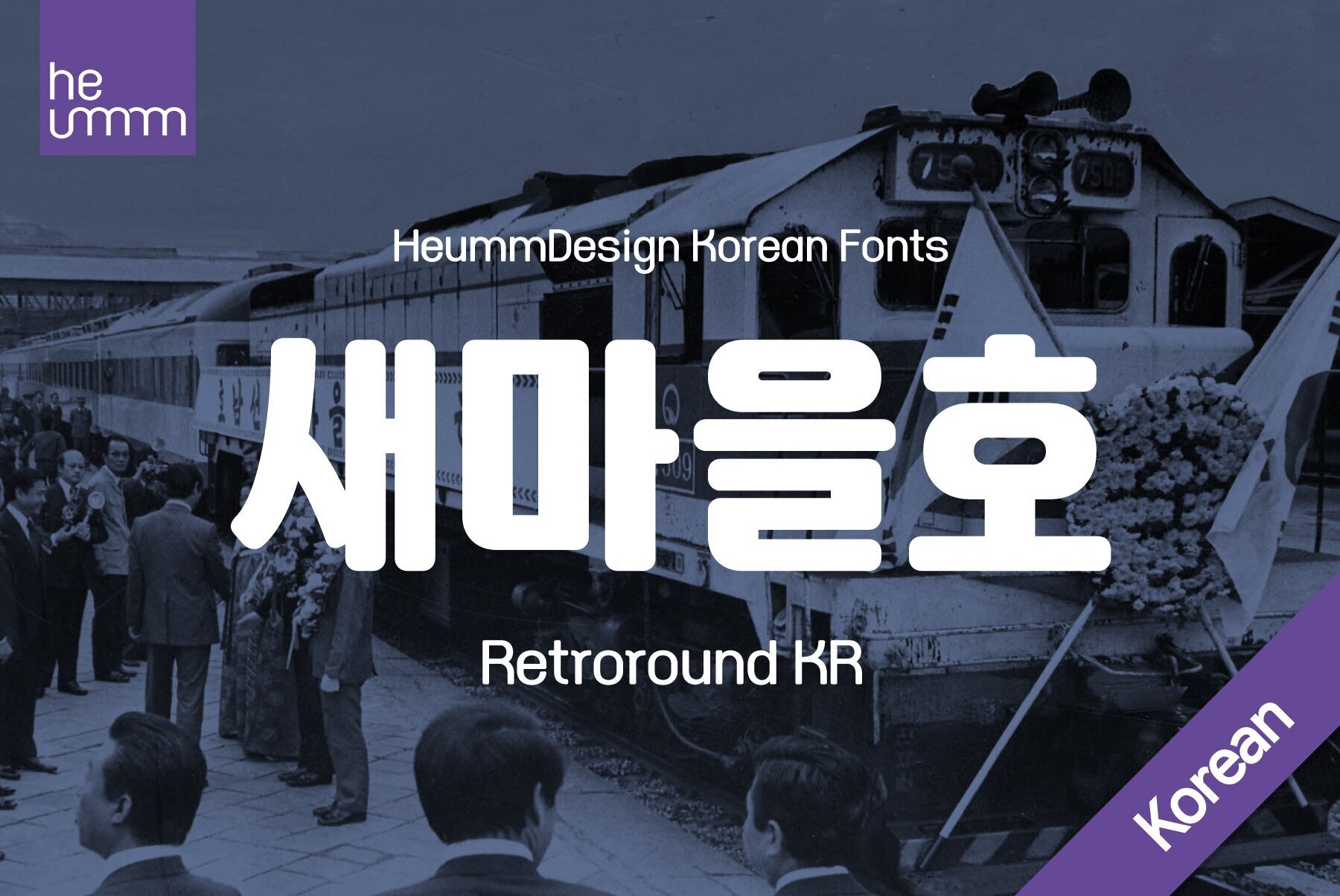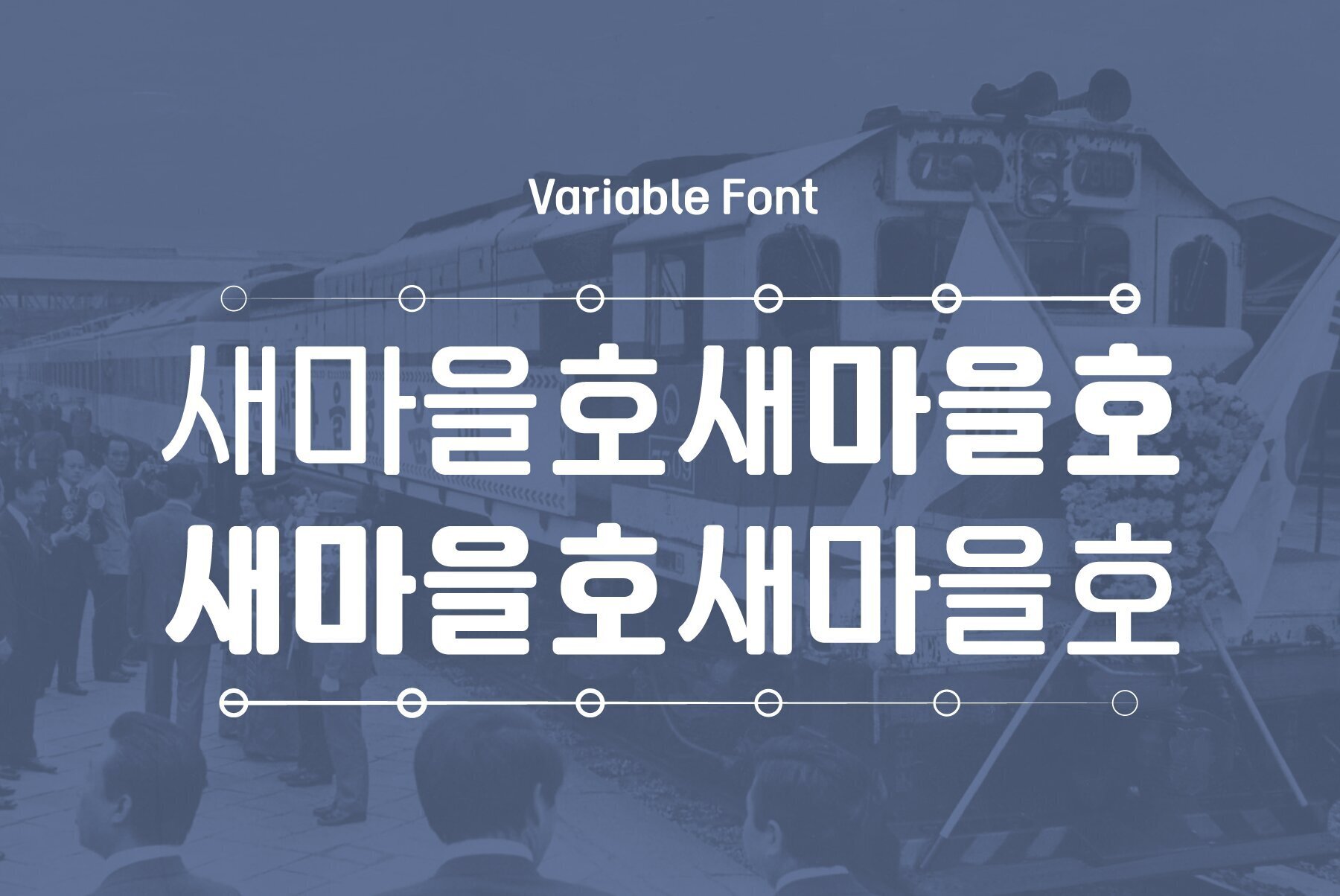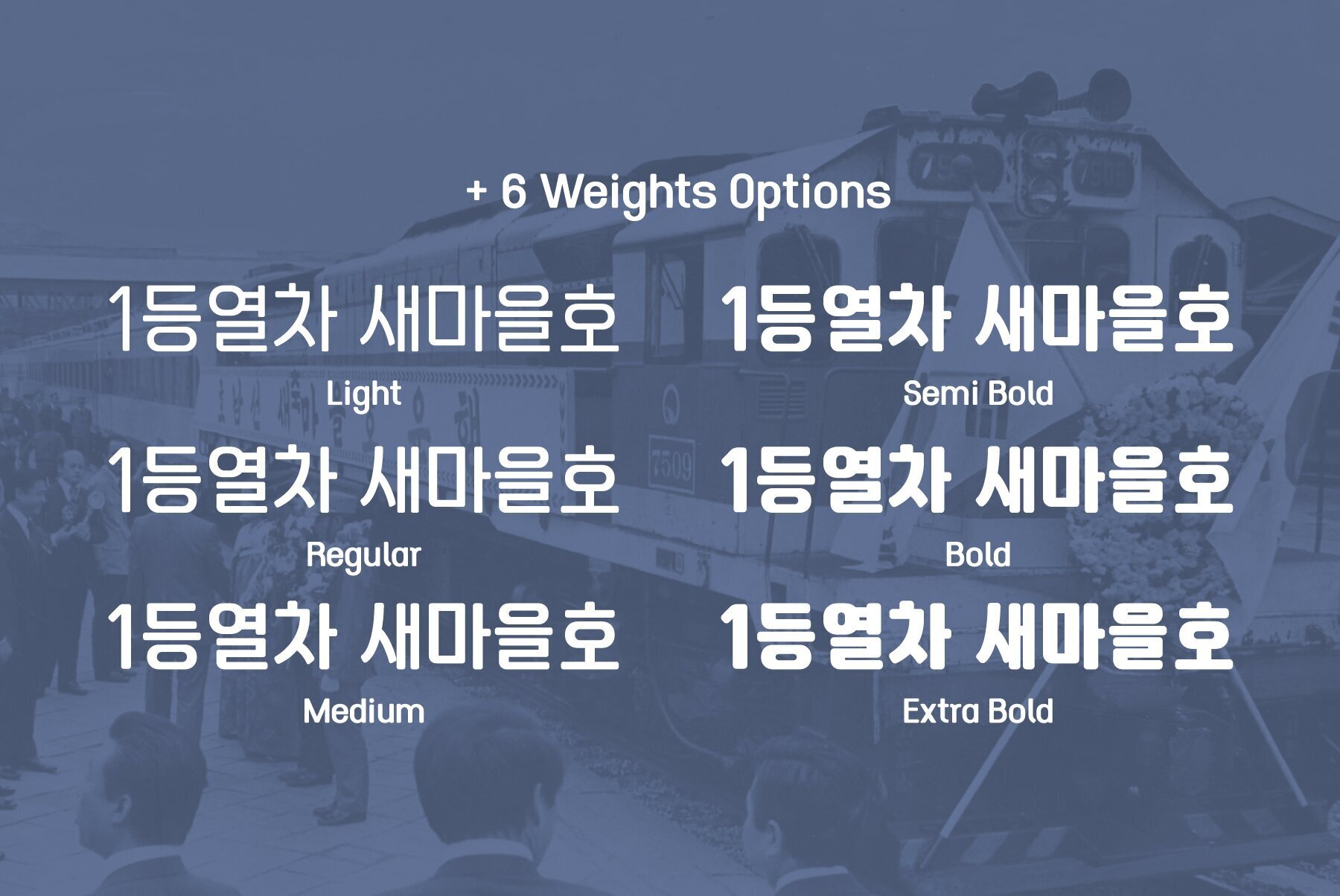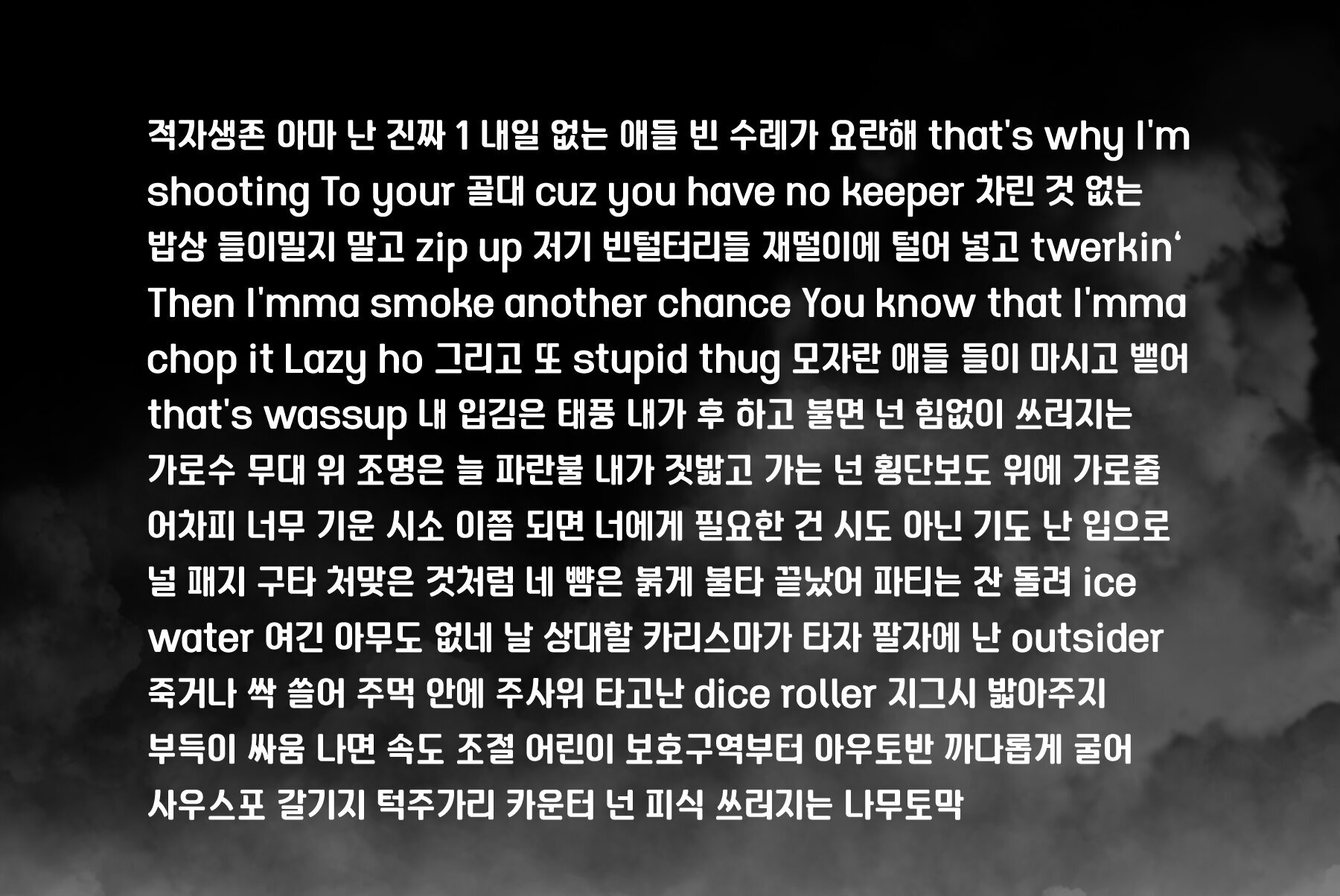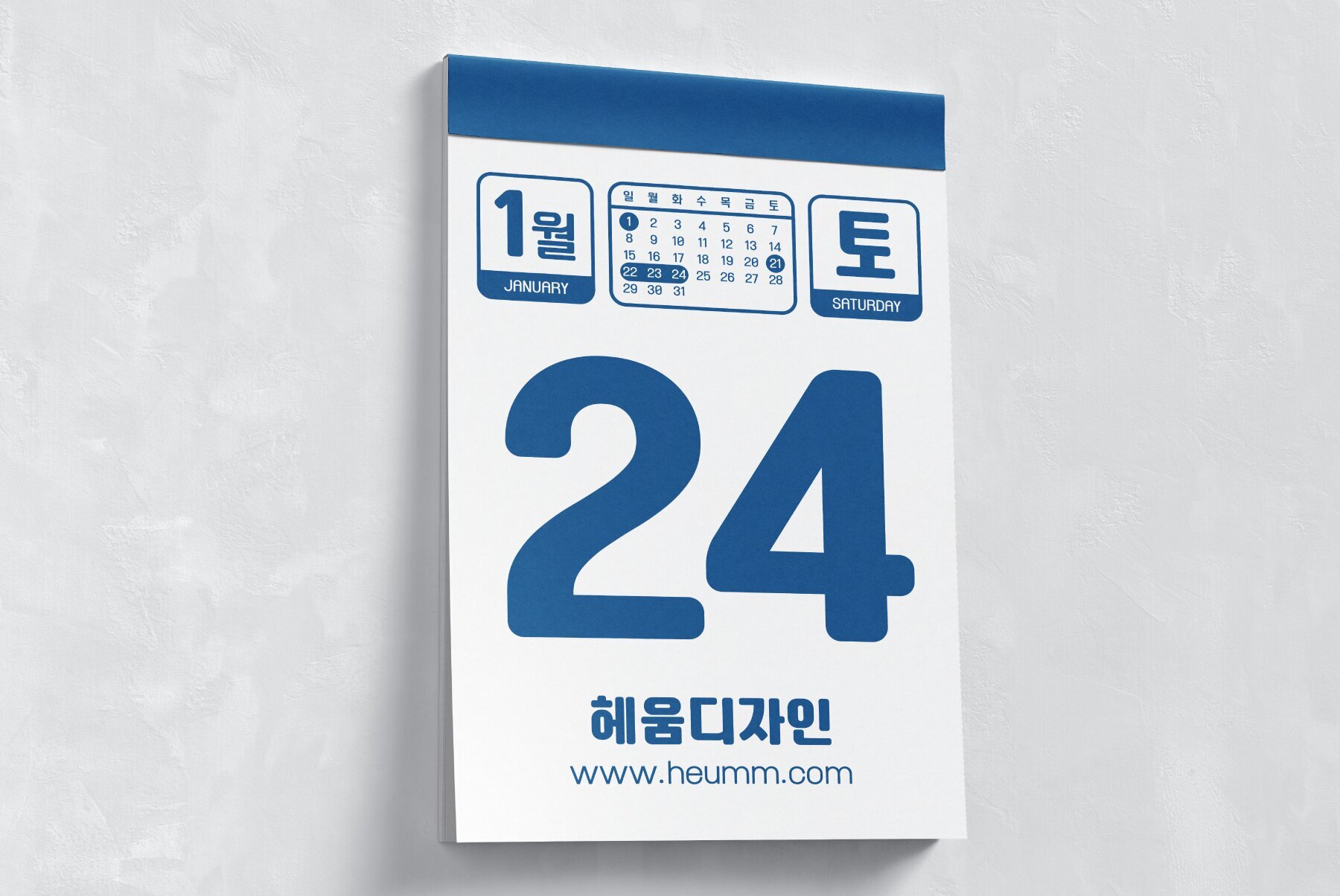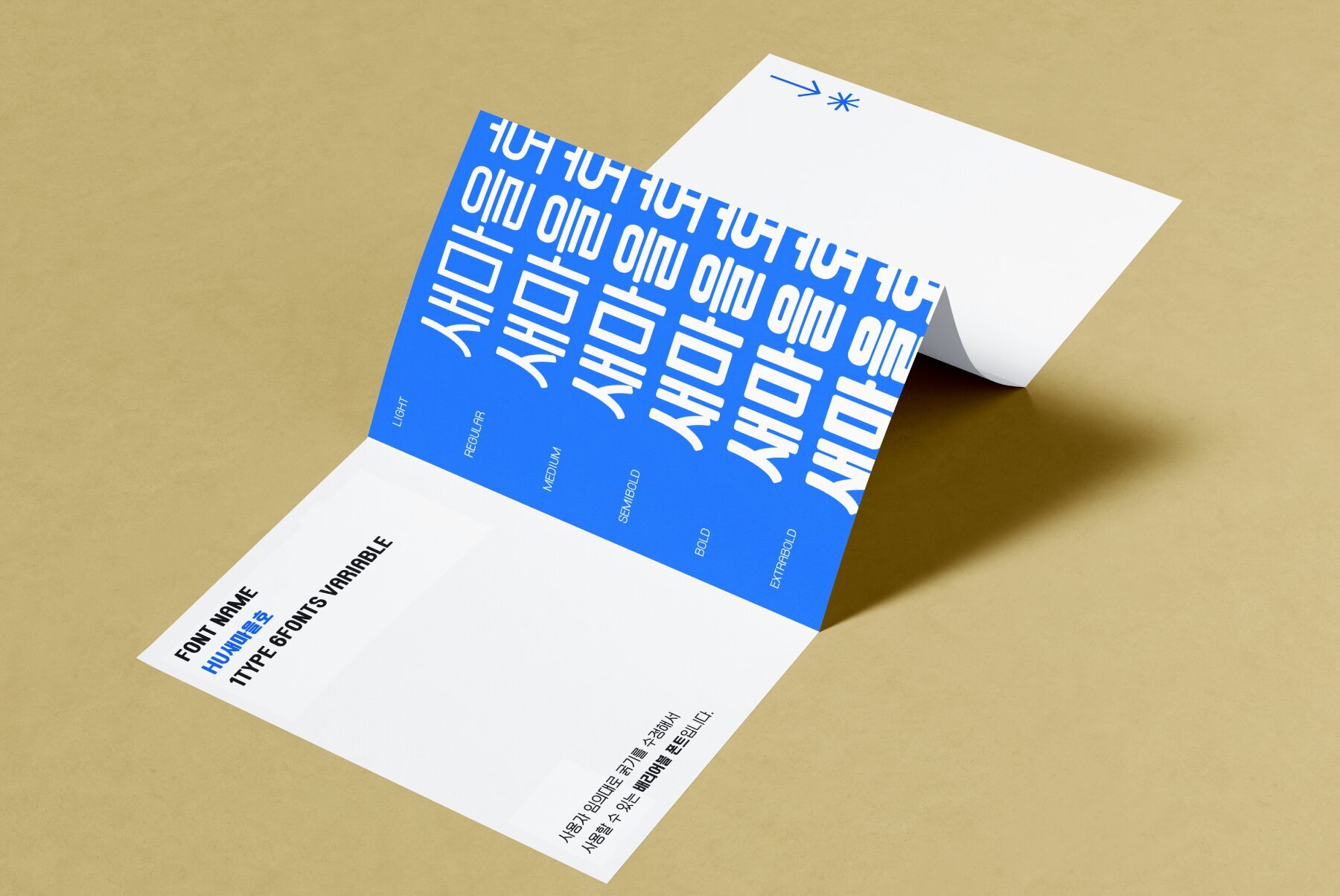
HU Retroround KR Font
'HU Retroround KR' is a font that captures the feel of the retro typefaces used on signboards during Korea's modernization era. This font has a variable function, allowing users to fine-tune the thickness they want. (Available only in Adobe programs.) Six basic weights are provided so that they can be used even in programs that do not apply the variable function. This font includes Hangul, Korean.